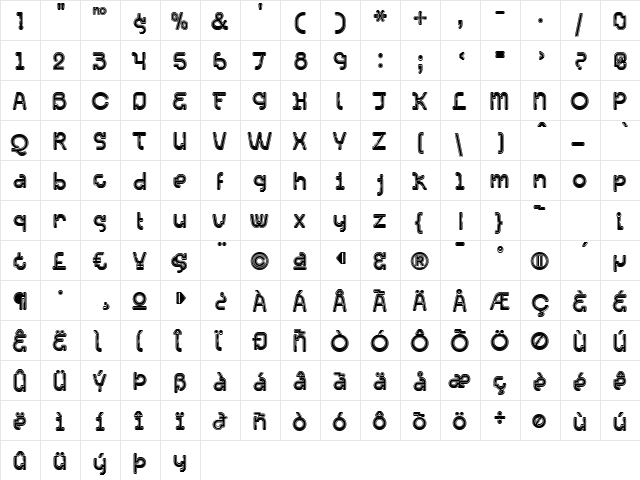
Acetone Collegiate
| Style | Collegiate |
Design Context for Acetone Typeface
Acetone is a composed and adaptable typeface that performs quietly and consistently across a wide range of design contexts.